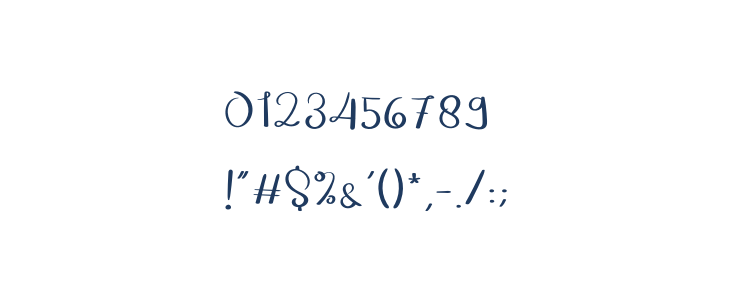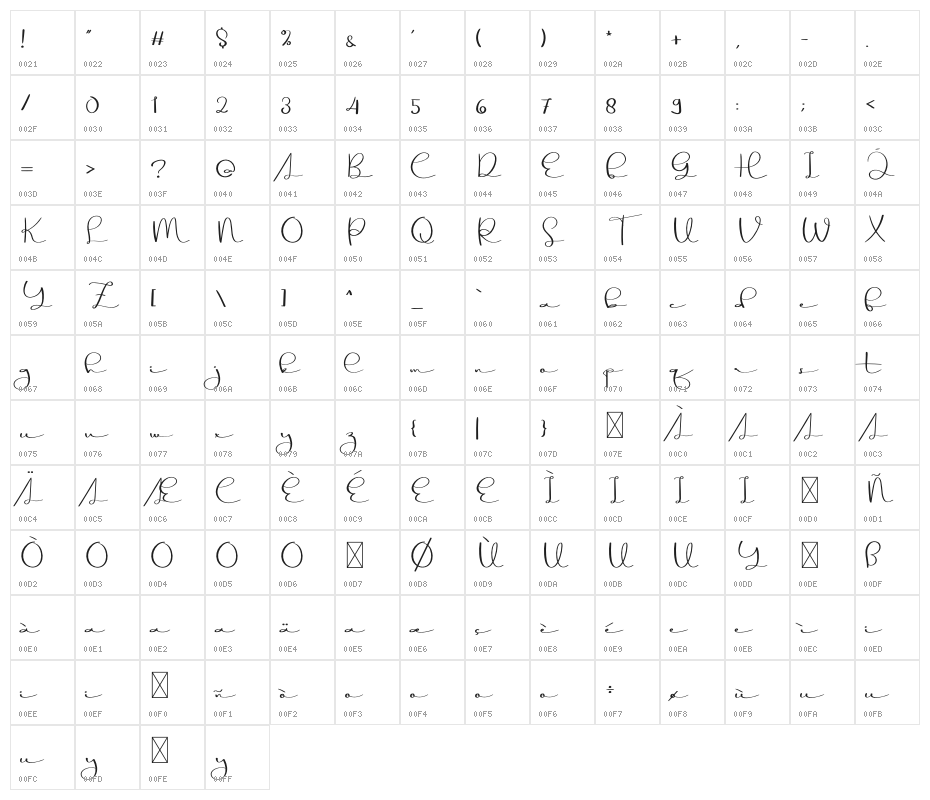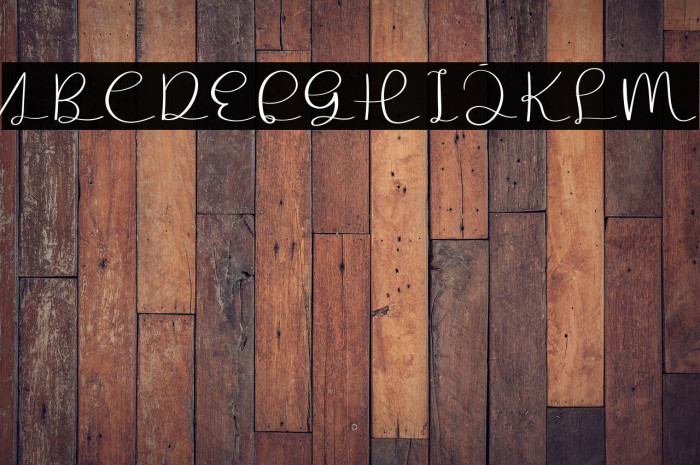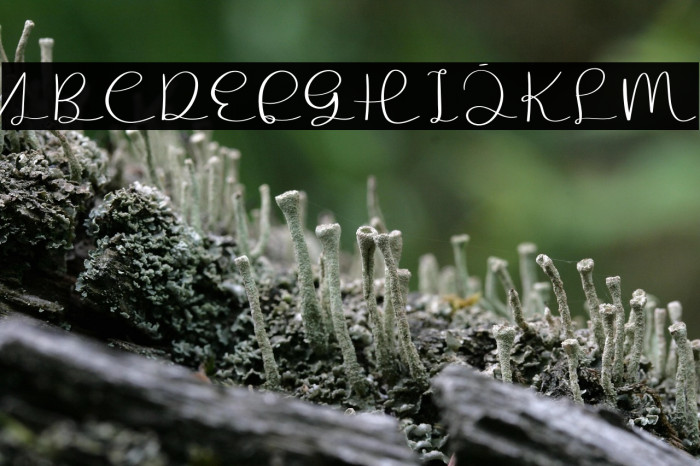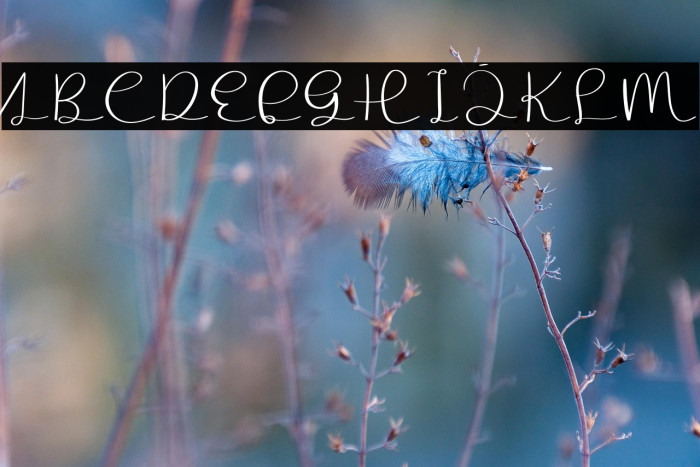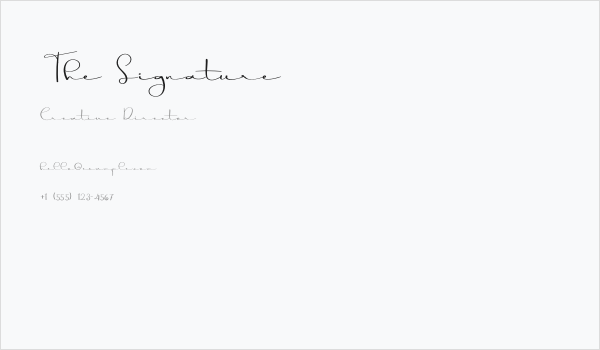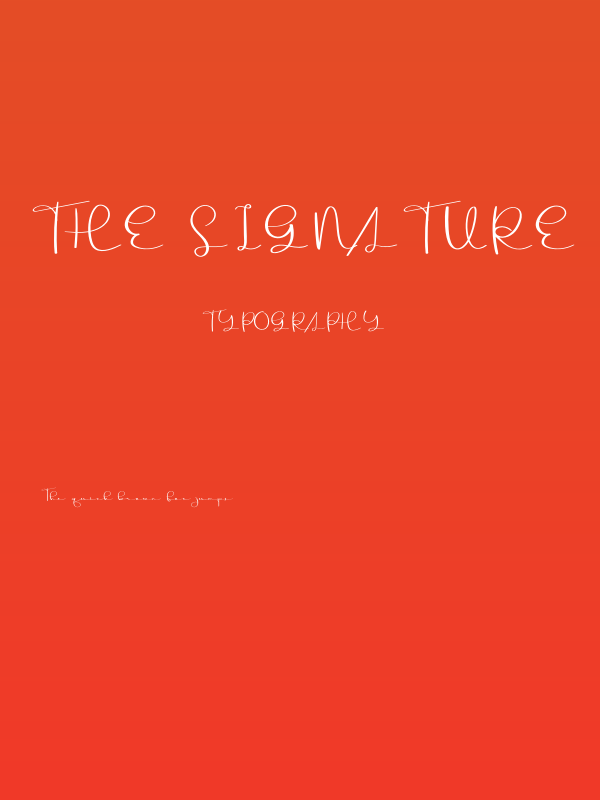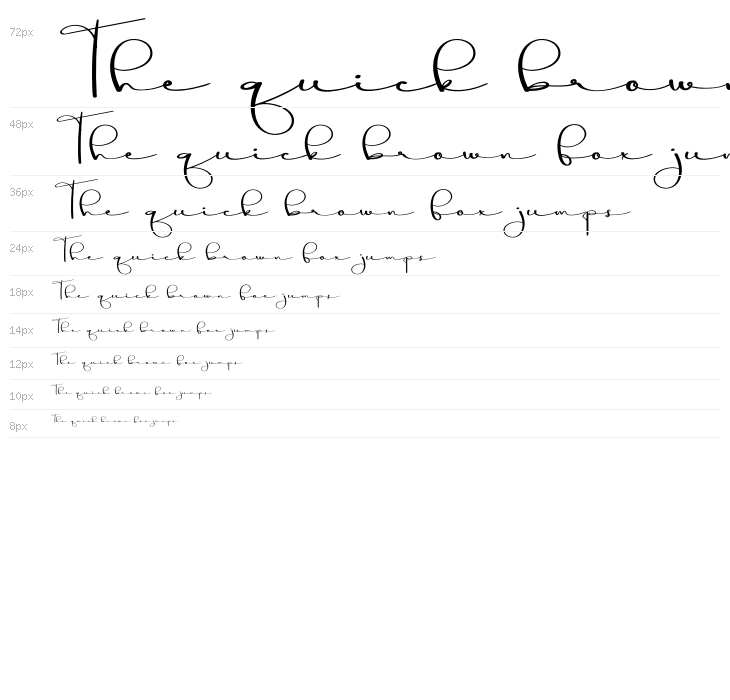
The Signature Font
The Signature Description
This elegant script font features a flowing, cursive style that mimics the fluidity of a handwritten signature. The uppercase letters are characterized by their graceful loops and swirls, while the lowercase letters maintain a consistent, smooth connection between characters. The numbers and special characters are designed with the same attention to detail, ensuring a cohesive look across all text. The font's thin strokes and delicate curves give it a refined and sophisticated appearance, making it ideal for projects that require a personal touch.
| Proposed Projects | Ideal for wedding invitations, personal branding, elegant logos, and stationery design. |